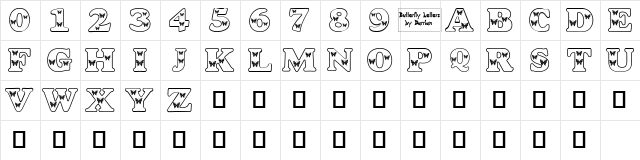
Butterfly Letters Medium
Design Context for Butterfly Letters Typeface
Butterfly Letters is a composed and adaptable typeface that performs quietly and consistently across a wide range of design contexts.